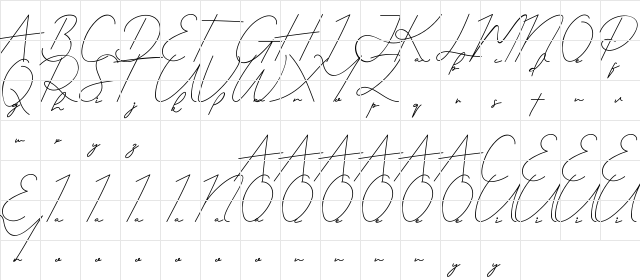
Fairry Eastern Demo Regular
| Foundry | NihStudio |
| Designer | Widiyanti & Sarah Suci P |
Design Context for Fairry Eastern Demo Typeface
Fairry Eastern Demo is a composed and adaptable typeface that performs quietly and consistently across a wide range of design contexts.